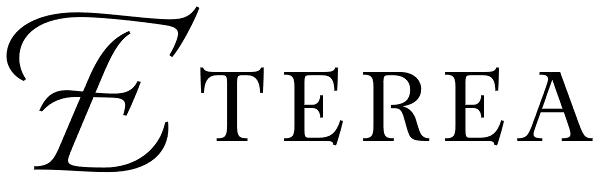
Eterea
Eterea is a formal font inspired in the monumental inscriptions of classic Rome, but not strictly sticking to the ancient roman typographic characteristics. Its unique look is the result of mixing diverse typographic styles, but mostly having traces...